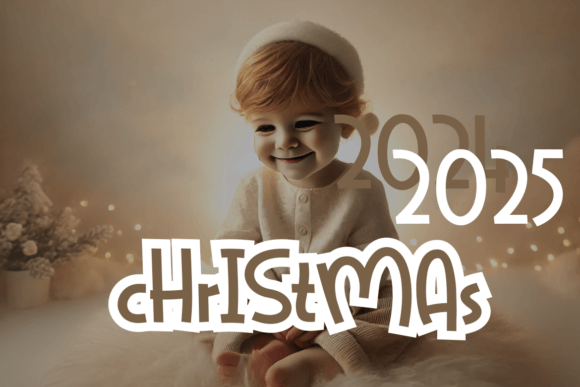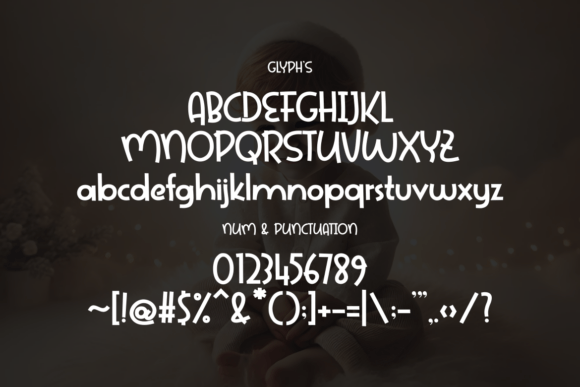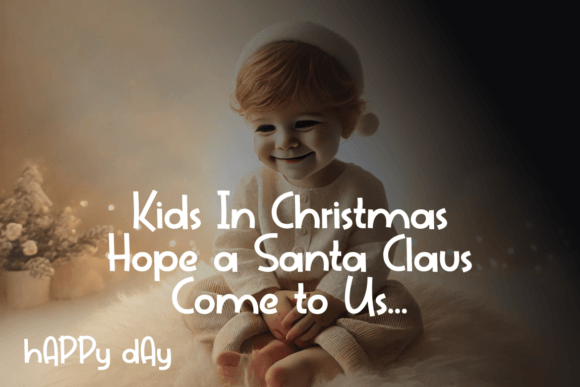
Welcome to the Magical World of Ansold 24: A Festive Font for the Holiday Season
As the holiday season approaches, designers and crafters are on the lookout for the perfect font to capture the essence of Christmas. Look no further than Ansold 24, a whimsical and warm font that embodies the gentle spirit of the season. In this article, we’ll dive into the world of Ansold 24, exploring its unique features, and how it can elevate your holiday designs.
The Inspiration Behind Ansold 24
Ansold 24 is more than just a font – it’s a festive experience. Crafted with love and care, this font is designed to resonate with the warmth and joy of Christmas. Its curves and lines are infused with a sense of whimsy, making it the perfect choice for designs that celebrate family, children, and the magic of the holiday season.
Delightful Design Elements
Ansold 24 boasts delightful, friendly curves that spread infectious cheer. Every character in the lineup is meticulously crafted to infuse your designs with a charming warmth that exudes the cozy spirit of Christmas. From the swooping lines of the uppercase letters to the playful tails of the lowercase letters, Ansold 24 is a masterclass in festive design.
Perfect for Holiday Designs
Ansold 24 is the perfect canvas for a wide range of holiday designs, including:
- Holiday cards: Spread cheer and joy with Ansold 24’s festive font, perfect for Christmas cards, Hanukkah greetings, and New Year’s Eve invitations.
- Family event posters: Create eye-catching posters for holiday events, such as Christmas markets, Hanukkah parties, and family gatherings.
- Festive invites: Invite friends and family to join in the holiday fun with Ansold 24’s playful and festive font.
Why Choose Ansold 24?
So why choose Ansold 24 over other fonts? Here are just a few reasons:
- Unique and festive design: Ansold 24’s whimsical design sets it apart from other fonts, making it perfect for holiday designs that demand attention.
- Easy to read: Despite its playful design, Ansold 24 remains easy to read, making it perfect for body text and titles.
- Versatile: Ansold 24 can be used for a wide range of holiday designs, from formal to informal.
Tips for Using Ansold 24
To get the most out of Ansold 24, here are a few tips:
- Pair with complementary fonts: Pair Ansold 24 with complementary fonts, such as serif or script fonts, to create visual interest.
- Experiment with colors: Ansold 24 looks great in a range of colors, from traditional red and green to metallic gold and silver.
- Don’t be afraid to get creative: Ansold 24 is a versatile font that can be used in a wide range of designs, so don’t be afraid to experiment and try new things.
In conclusion, Ansold 24 is a festive font that embodies the whimsy and warmth of the holiday season. With its unique design elements, versatility, and ease of use, it’s the perfect choice for designers and crafters looking to create holiday designs that capture the essence of Christmas. So why wait? Download Ansold 24 today and start spreading cheer and joy with your holiday designs!
Key Features of Ansold 24
- Whimsical and warm design
- Perfect for holiday designs, including cards, posters, and invites
- Unique and festive design elements
- Easy to read
- Versatile and compatible with a range of design software
Whether you’re a designer, crafter, or simply someone who loves the holiday season, Ansold 24 is the perfect font for you. So go ahead, get creative, and spread some holiday cheer with Ansold 24!